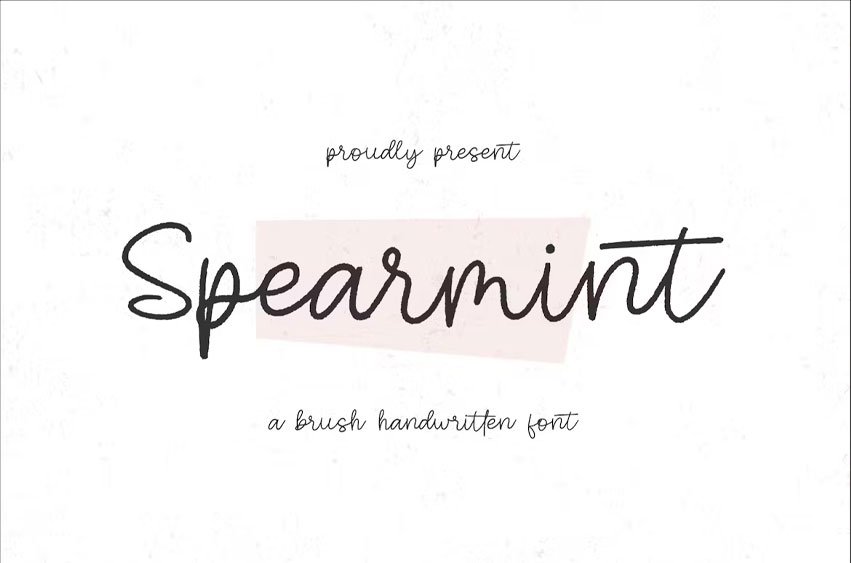
QF Spearmint Font is perfect for product packaging, logo, invitation, stationery, branding project, label, photography, watermark, megazine, social media post, wedding, or just used to express words above the background.
• Logos, Branding, & Signatures.
• Flyers, Album cover, Magazine, & Advertisements.
• Website design , design blogs, & fashion.
• Quote graphics for social media. – and also it works great for other projects.